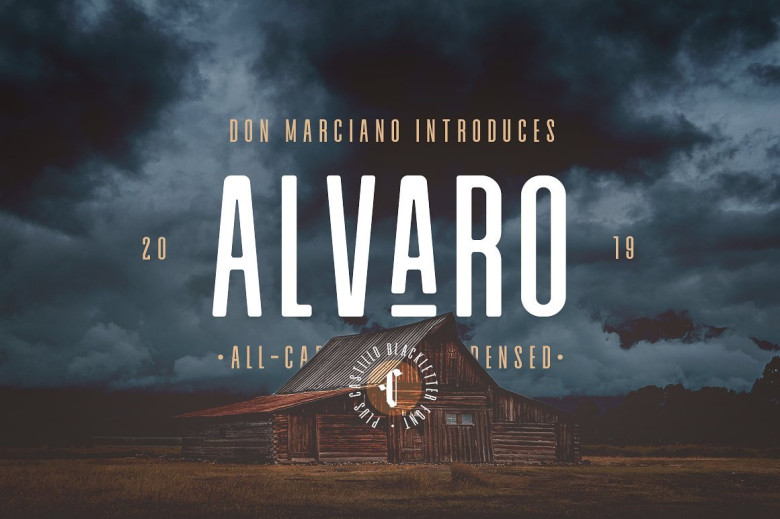
Alvaro Condensed Font Duo
Say Hello Guy’s . A clean condensed style font, very suitable to your happy mood and stunning project, and maybe you love to use it on social media like Instagram or others. Introducing Alvaro Font. Alvaro is a clean condensed style font, design as part of a growing font family for a personal project that needed a simpler look, here is the first iteration of the first weight out of the wooden oven, I want these fonts to be cooked slowly, to perfection; Alvaro comes paired with Castillo (a blackletter font) to complement the style and at the same time, show the design possibilities of this duo.